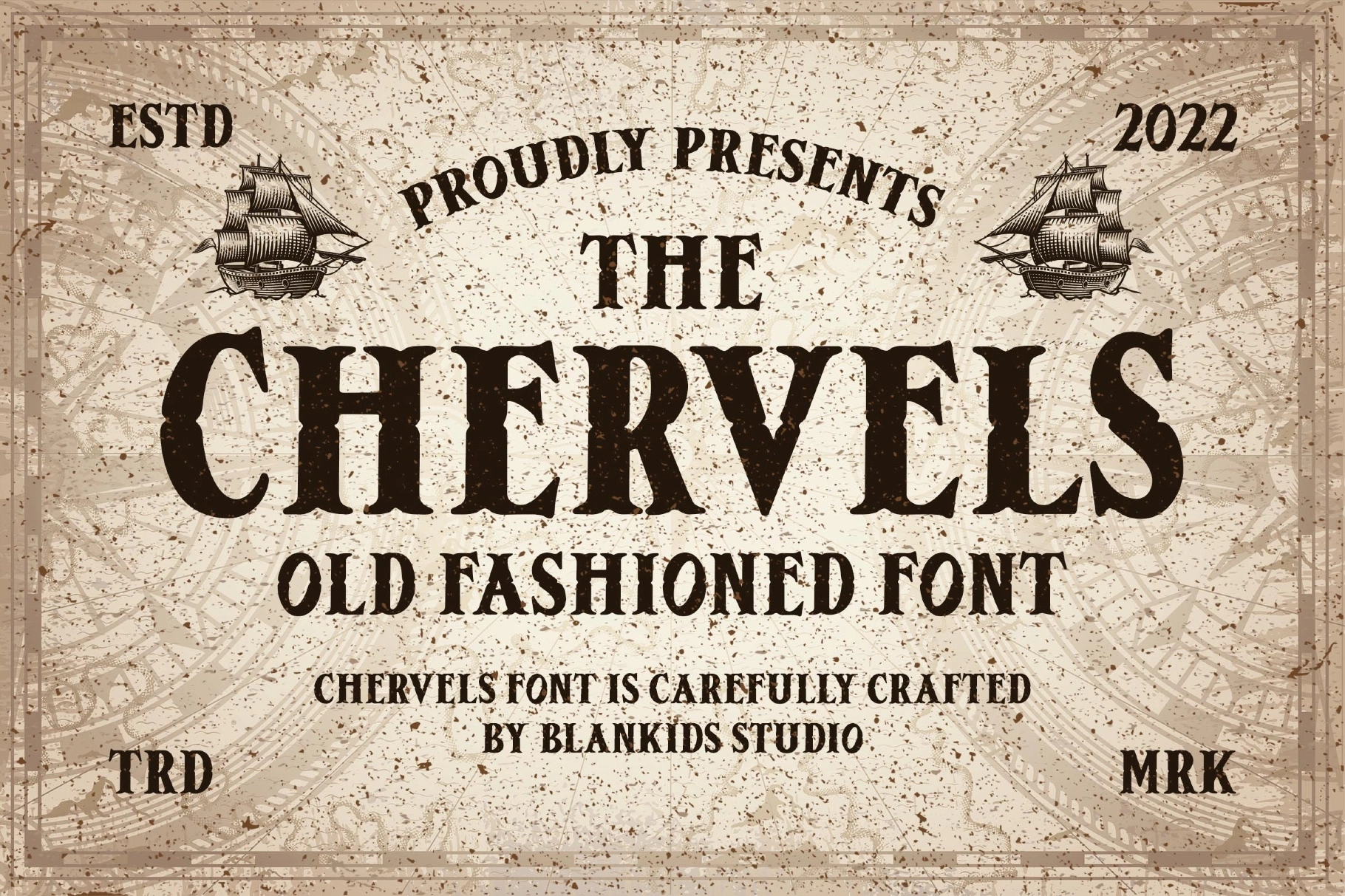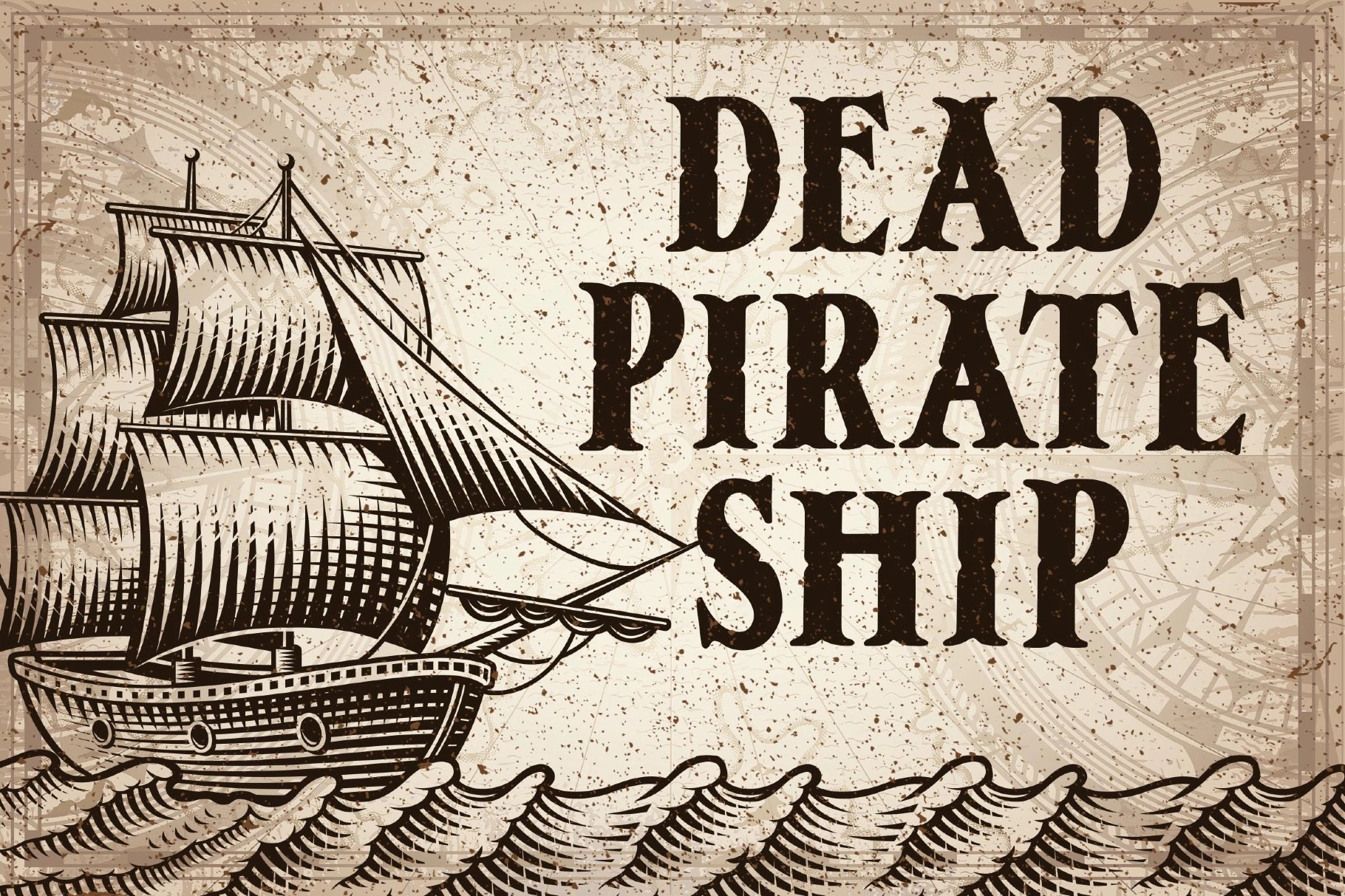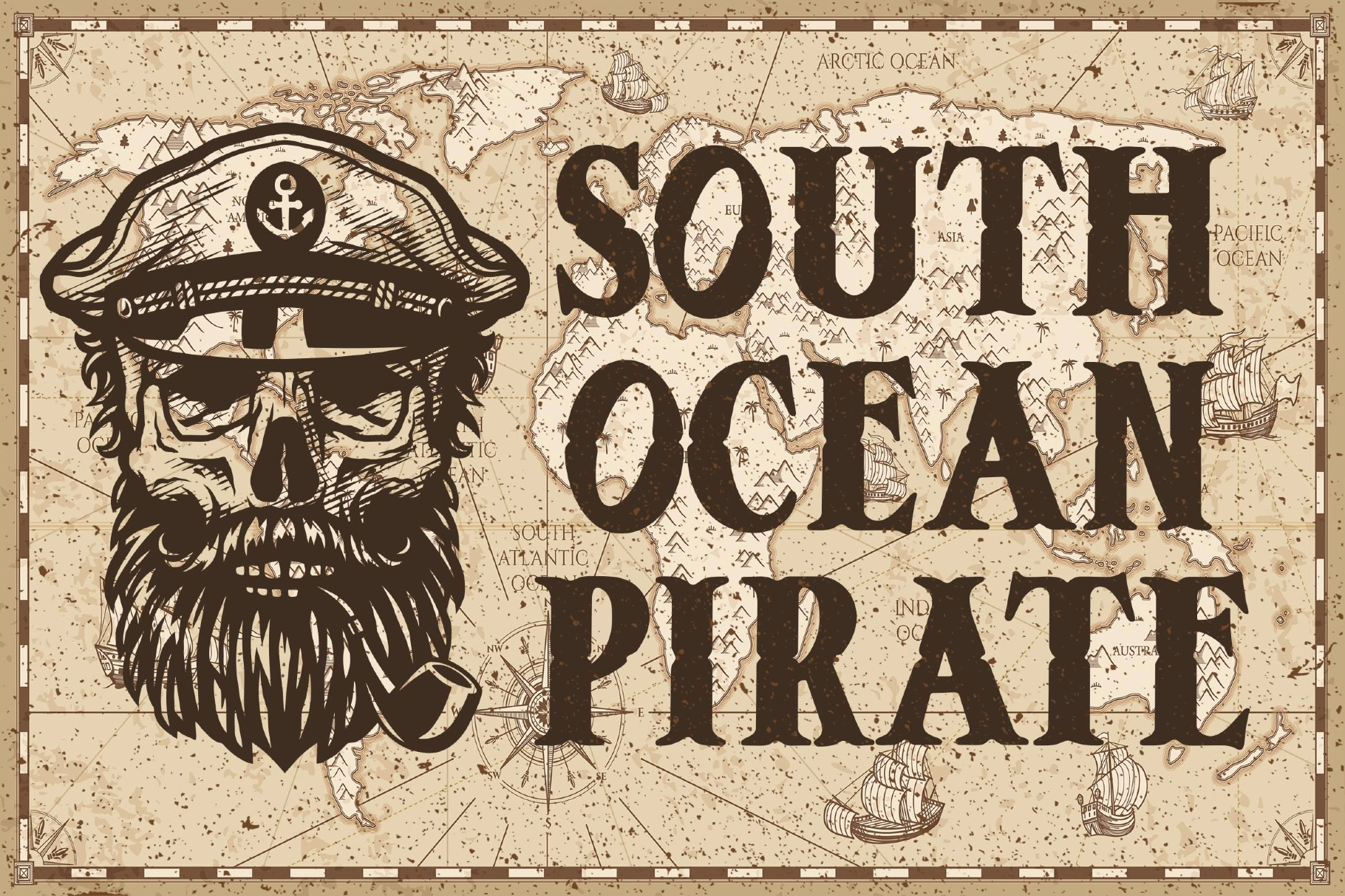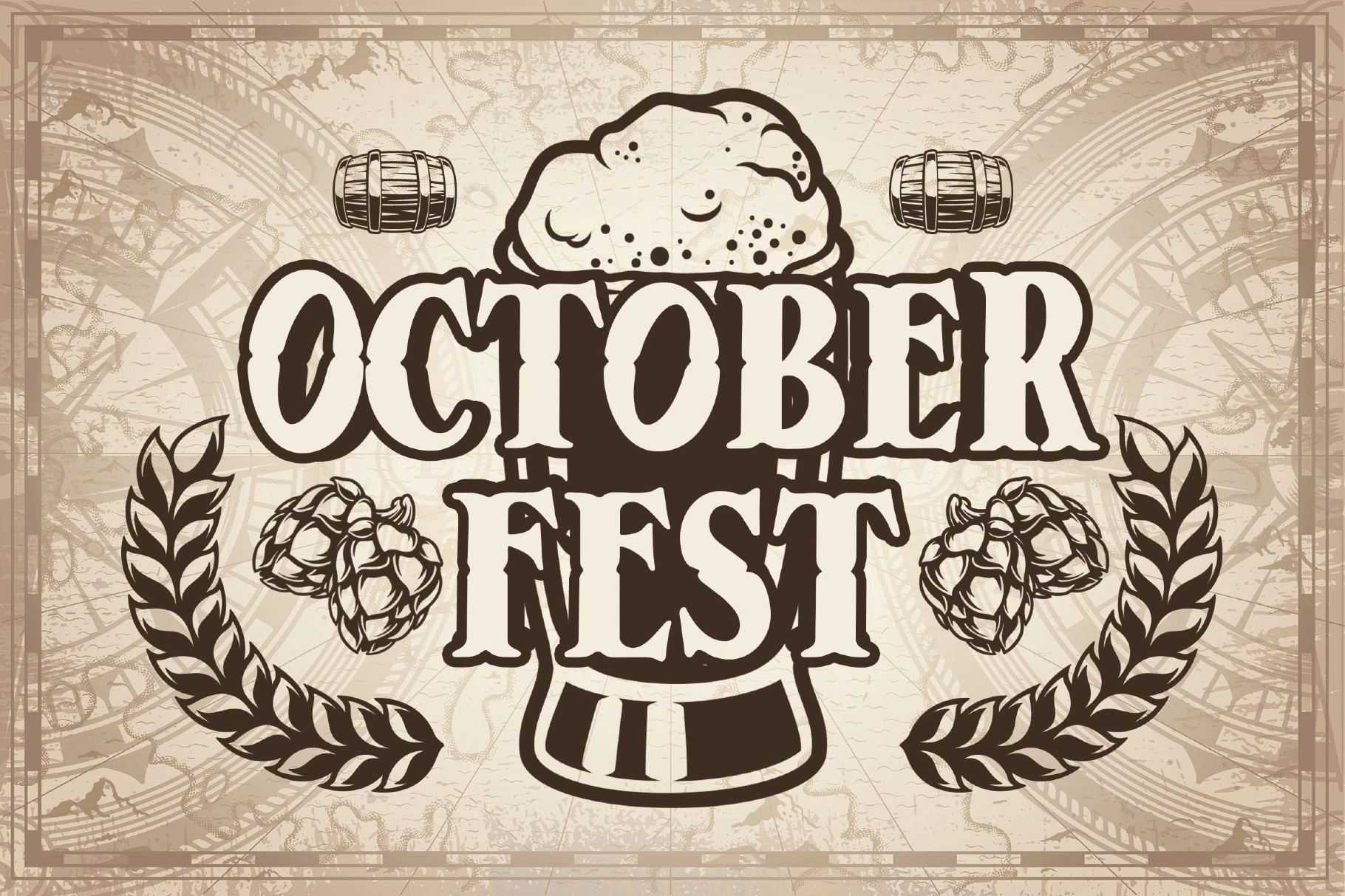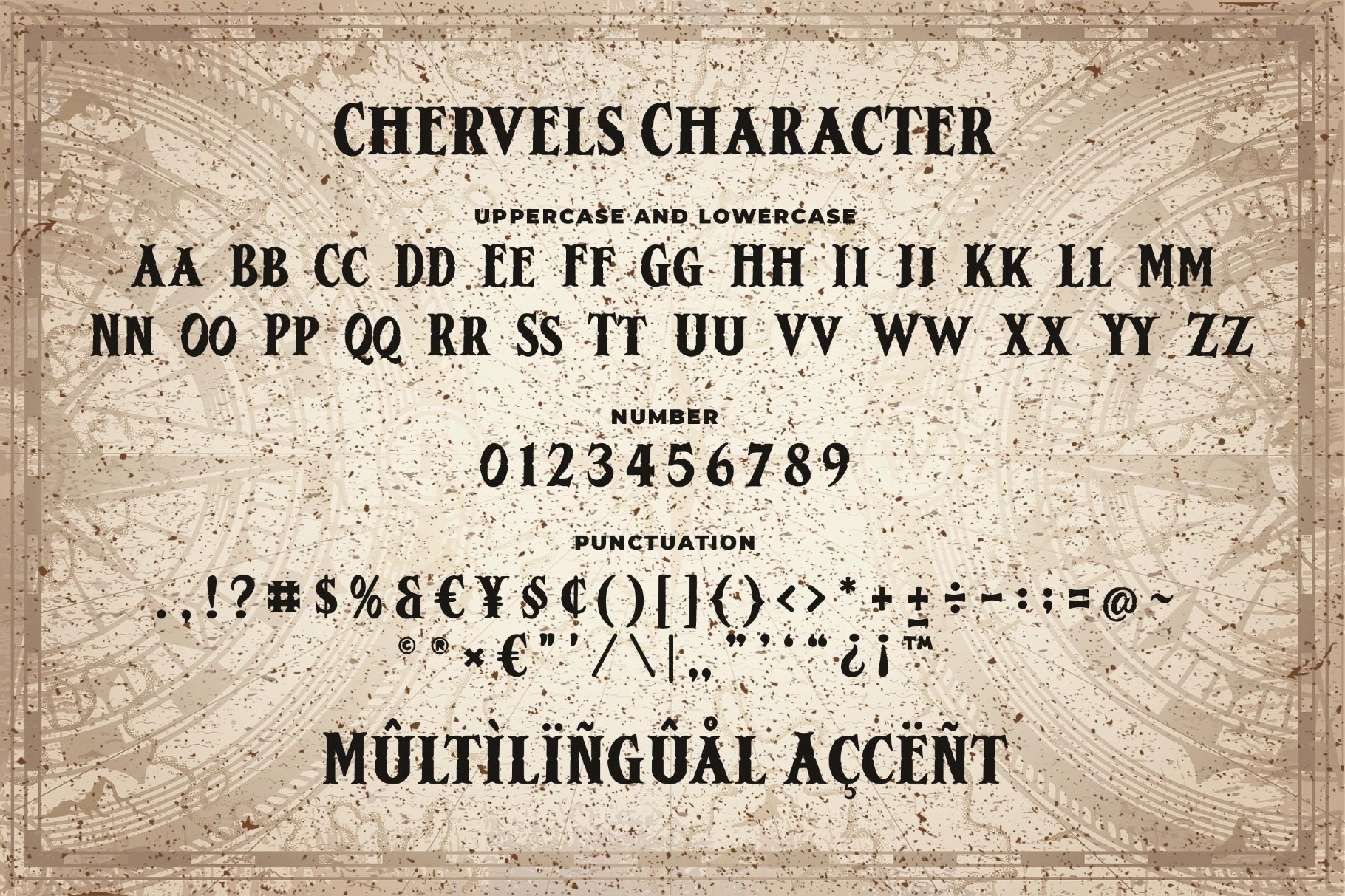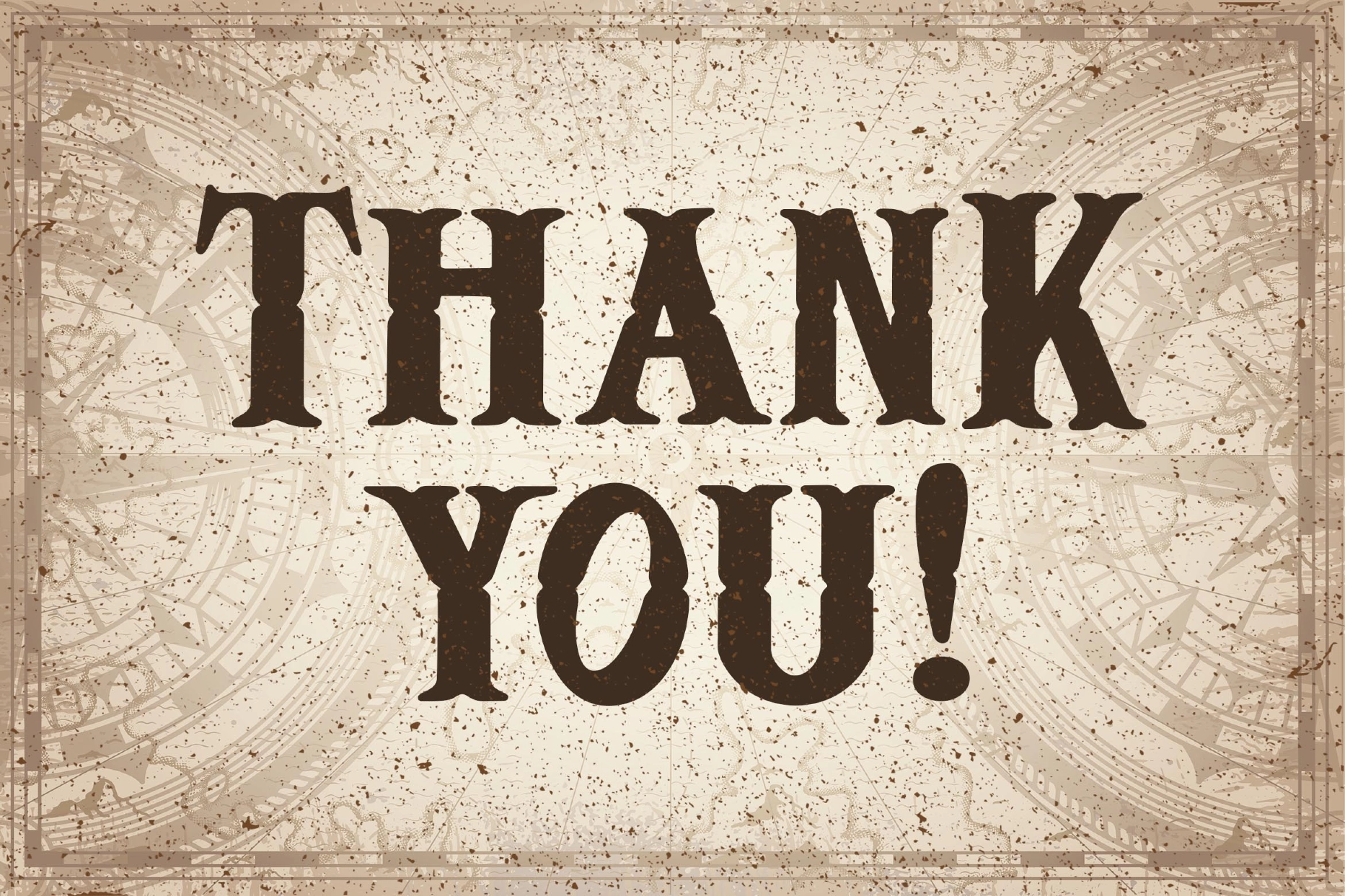
Chervels - Old Fashioned Font
This vintage display font has a rugged poster-shop voice, with chunky slab shapes, uneven edges, and a distressed ink finish. The wide letterforms carry a playful old-sailor attitude, especially in large headlines where the curves and rough texture get room to misbehave.
Chervels works best in loud, character-heavy designs with a pub sign, pirate map, or festival flyer mood. Use it for book covers, posters, packaging, merchandise, logotypes, beer labels, seafood branding, pirate-themed graphics, event titles, apparel prints, café signage, game titles, and editorial headers.